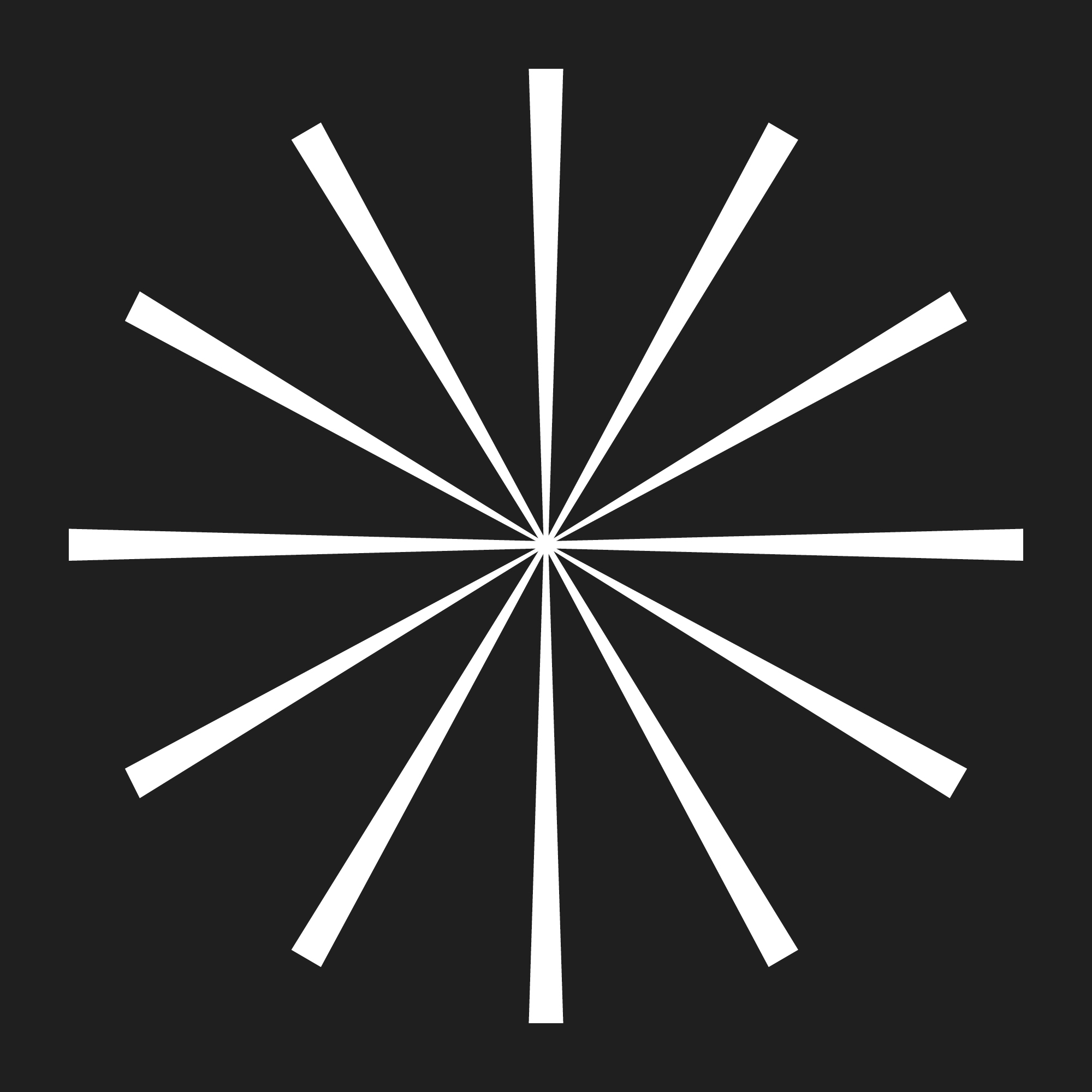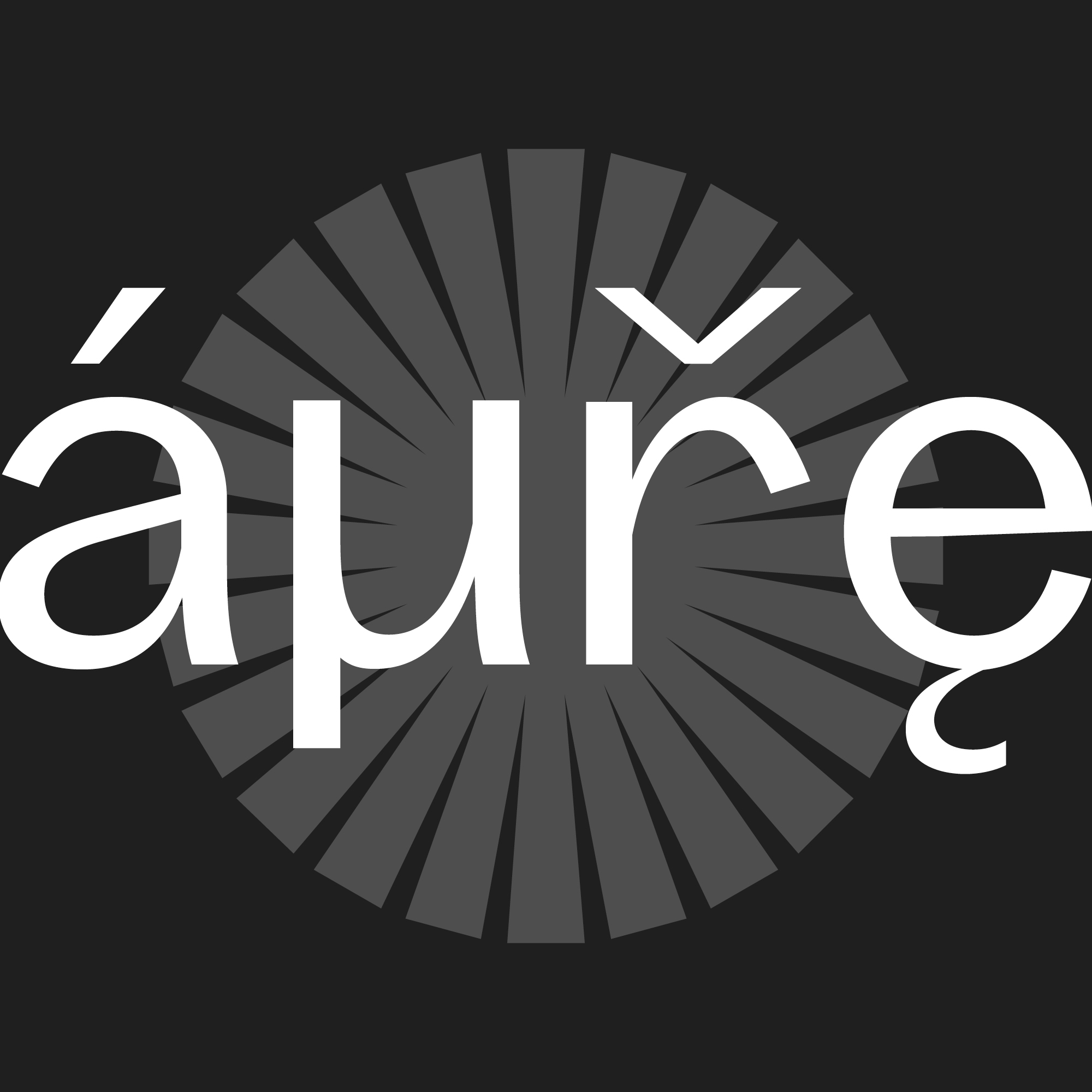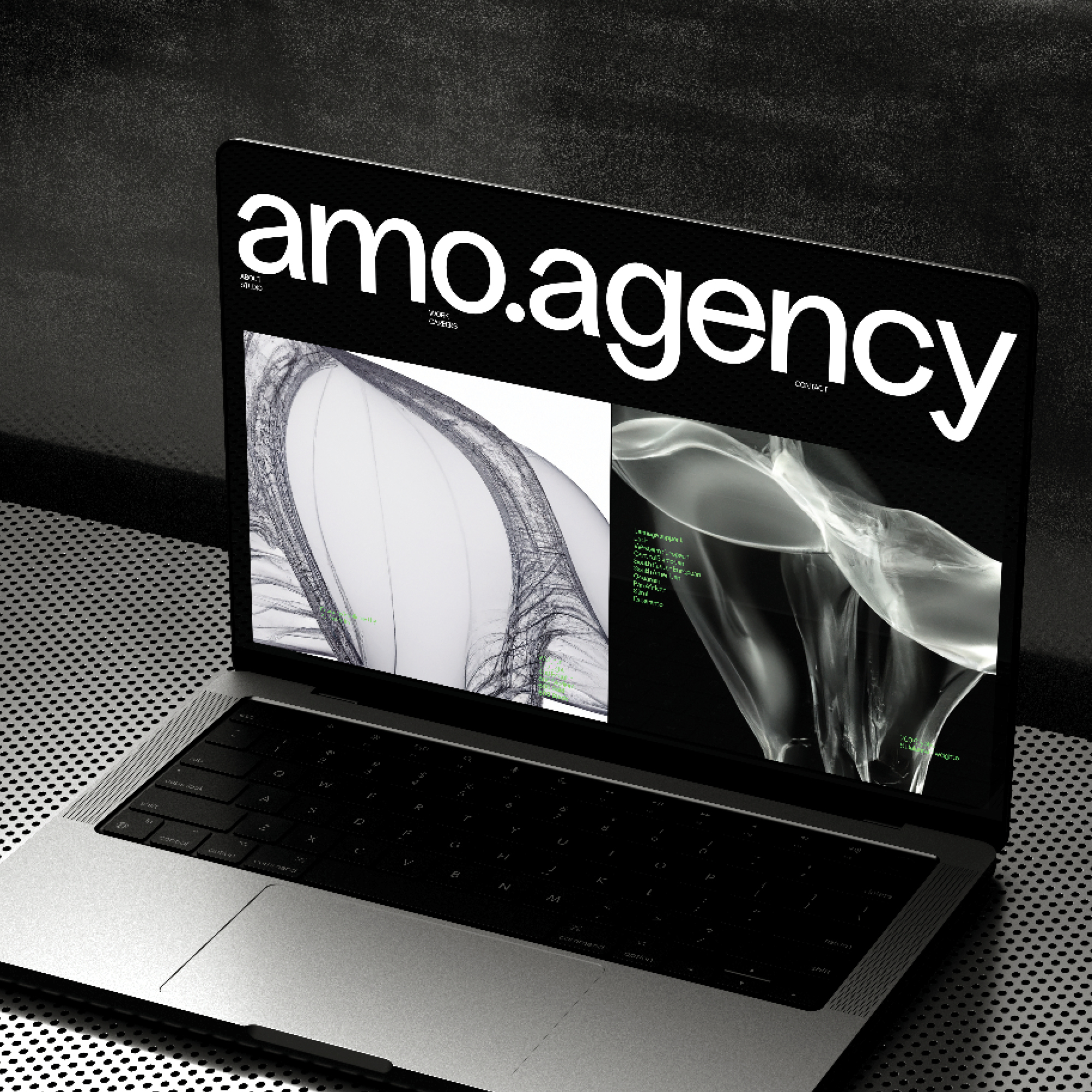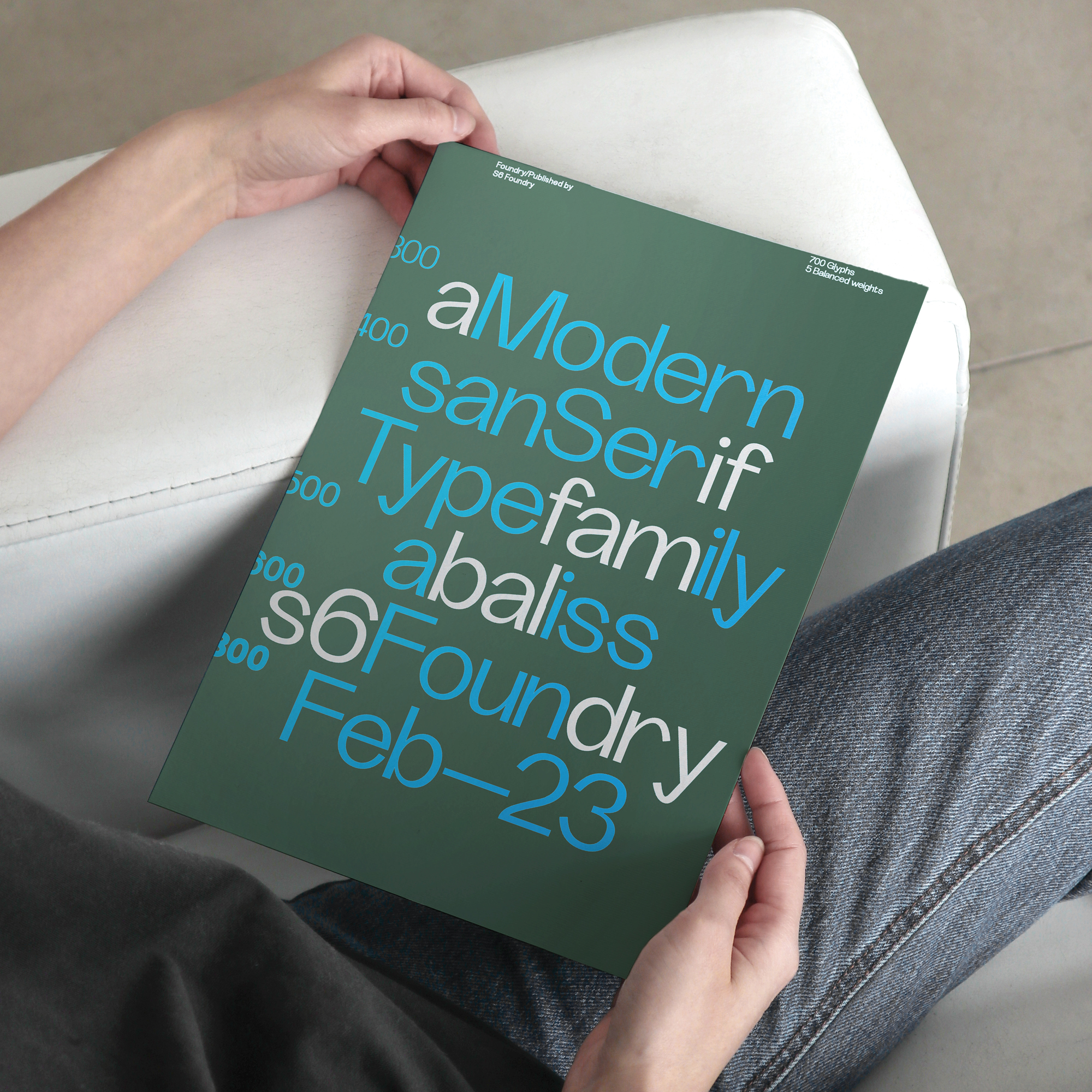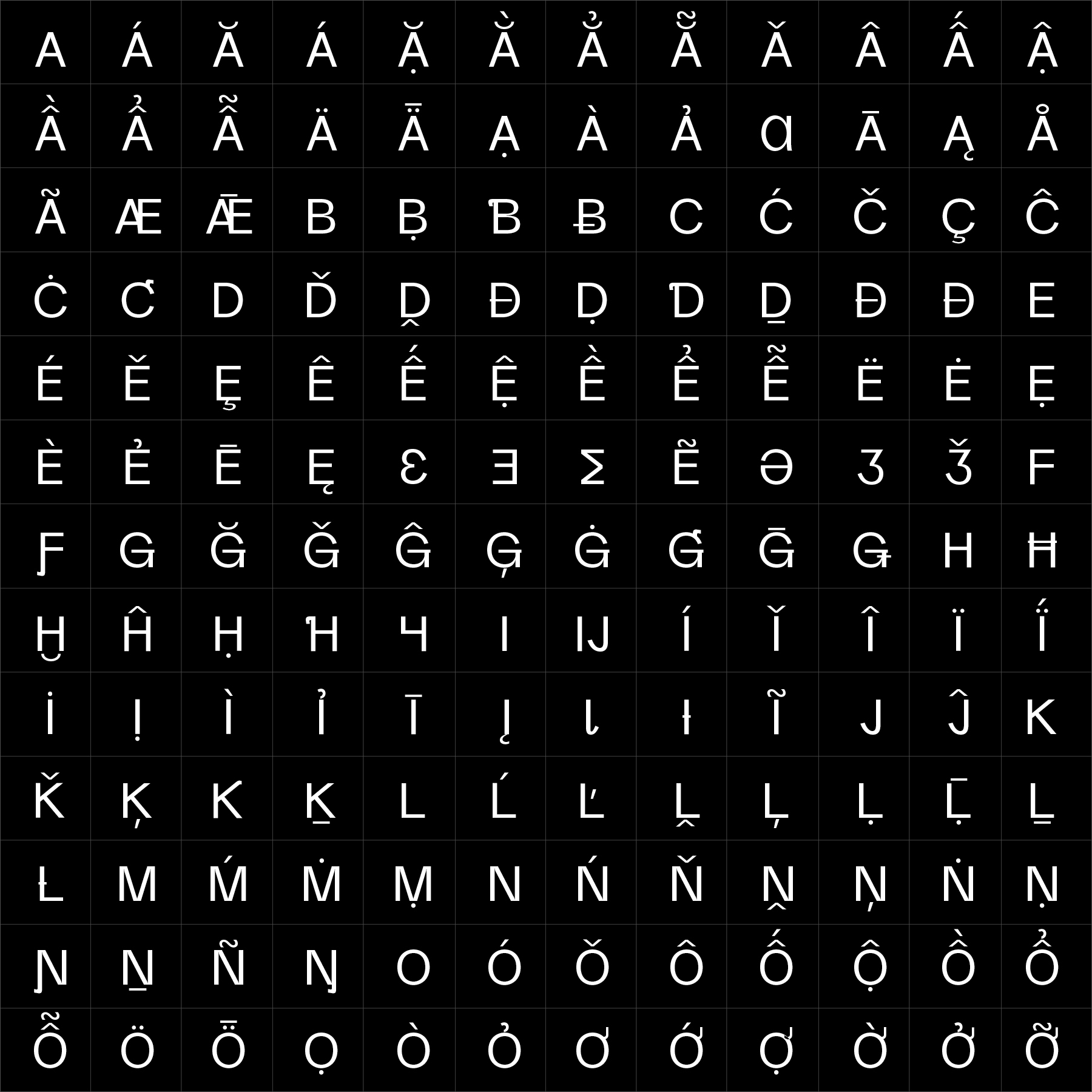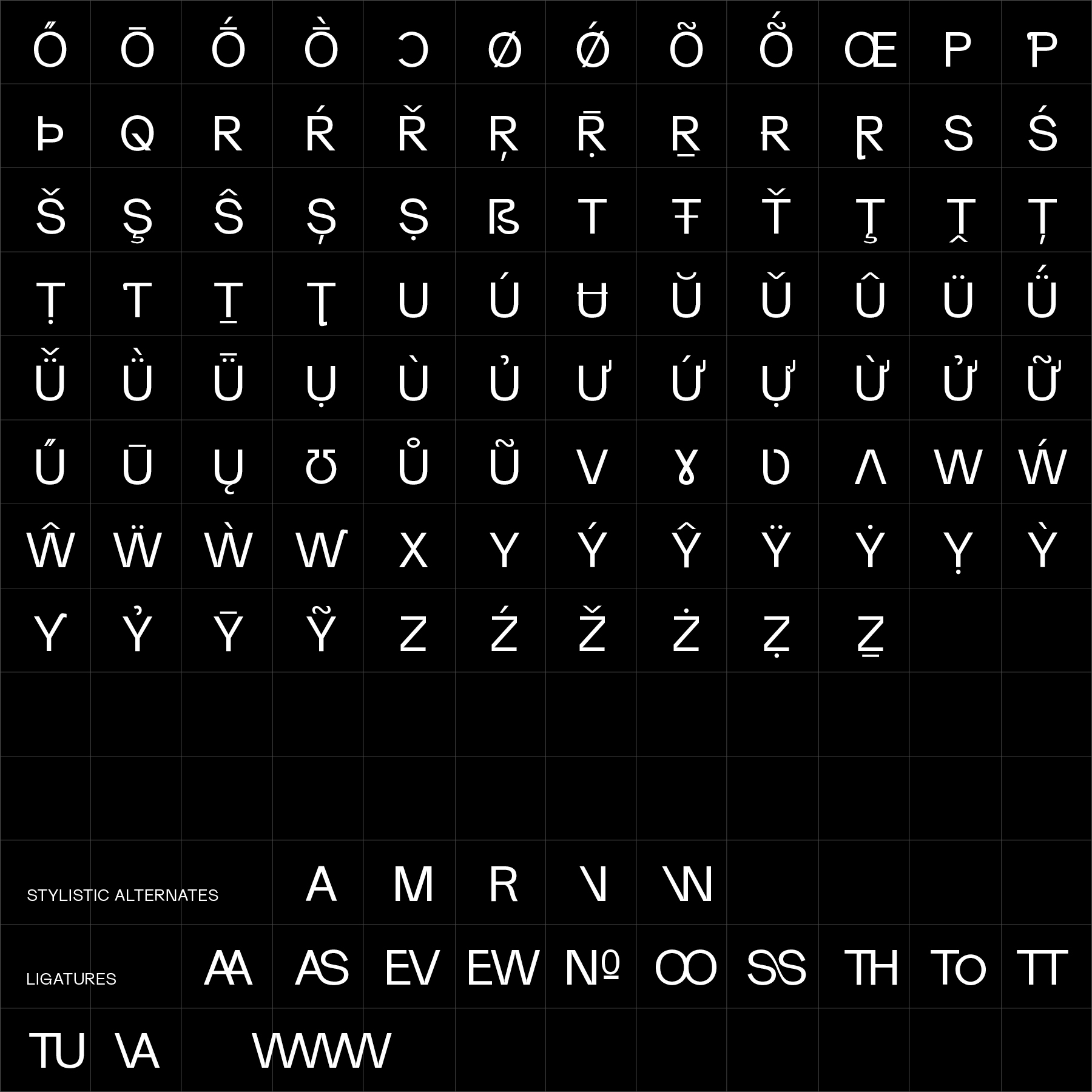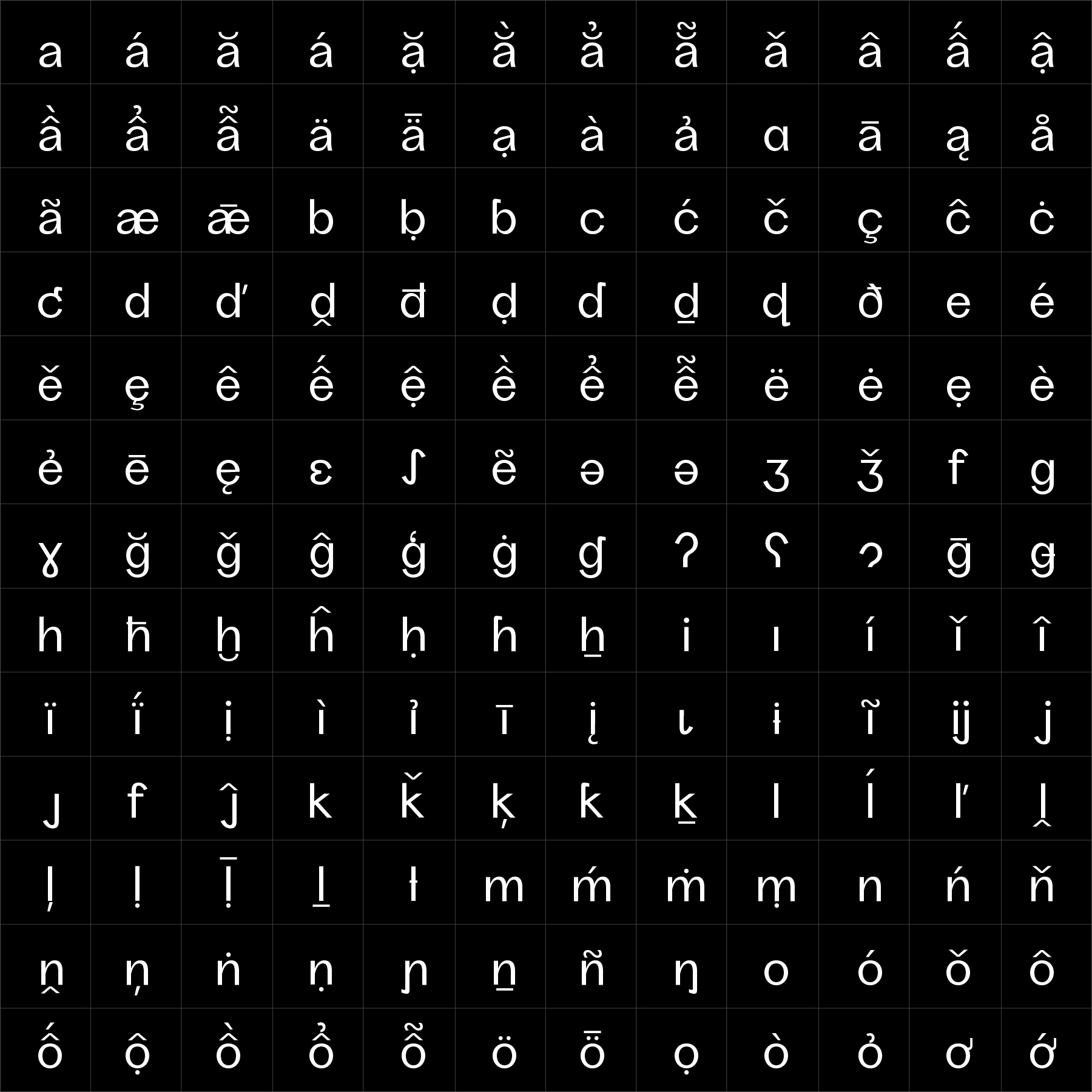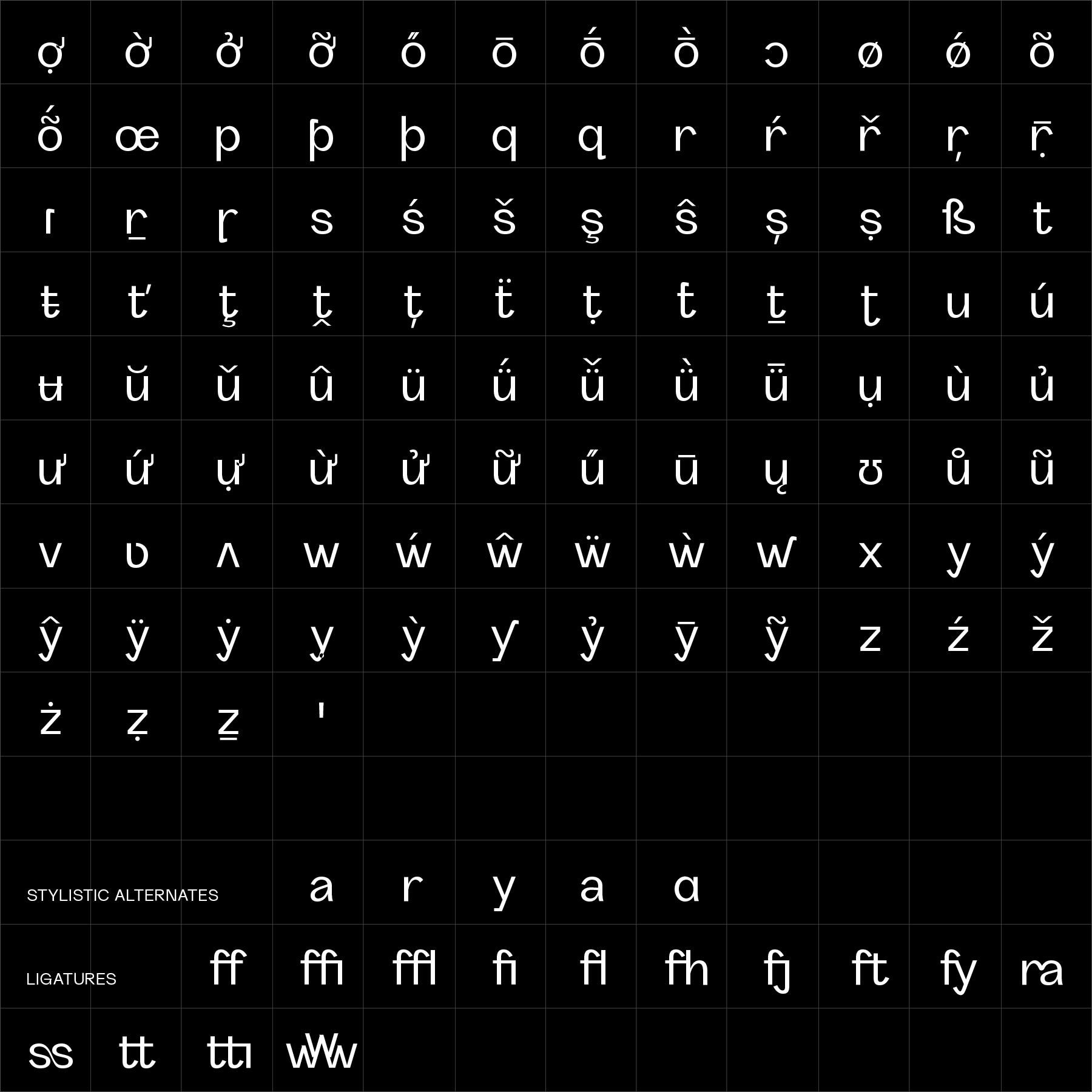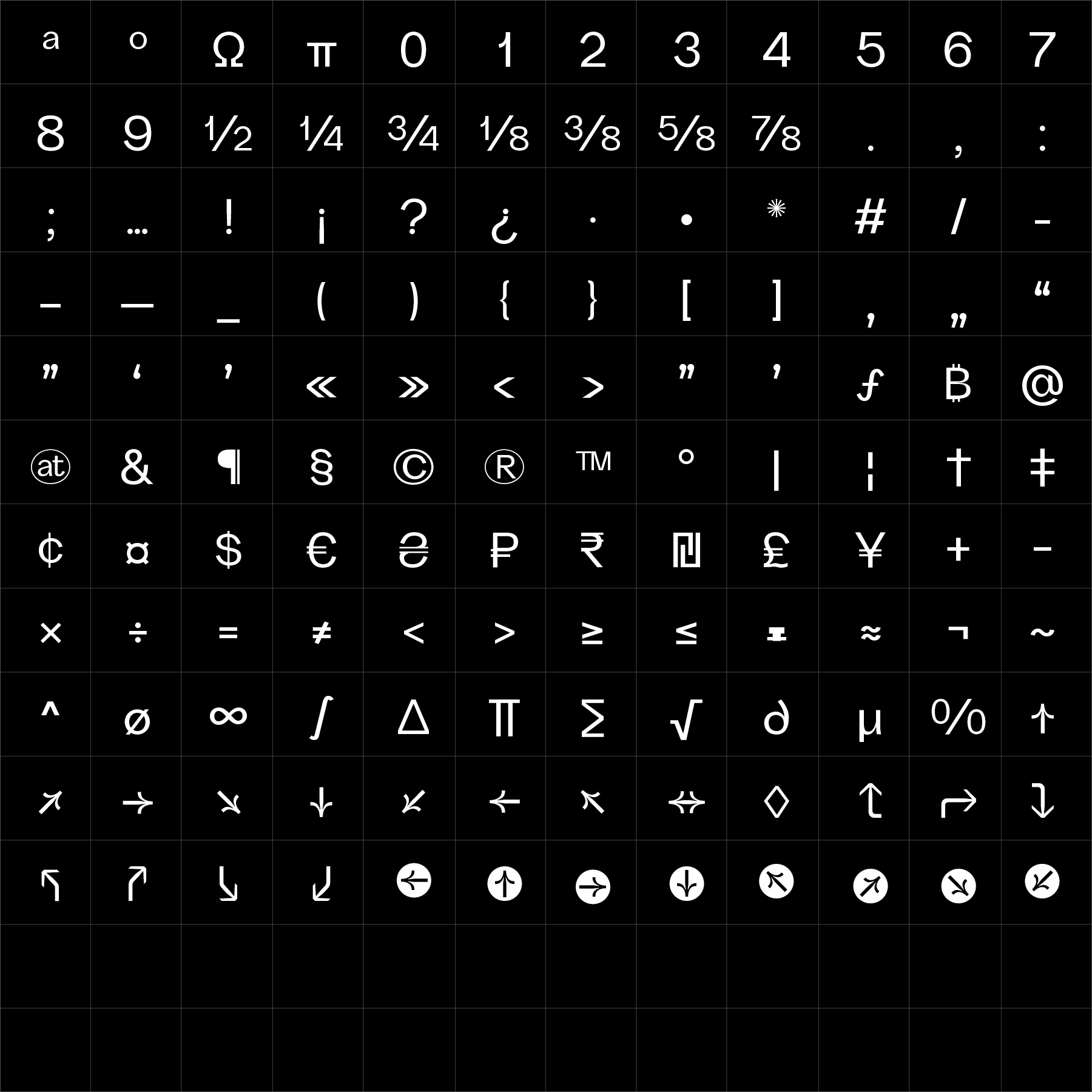
Abaliss Sans
Contemporary Sans Serif Font for Editorial, Branding and Digital Design
Abaliss Sans is a contemporary sans-serif built around balance, openness, and typographic control. Its wide proportions, generous spacing, and calm rhythm create a refined reading texture that feels clear and confident across both print and digital environments.
While rooted in modernist typography, Abaliss introduces softer detailing and subtle character throughout the family. Curved terminals, open counters, and carefully moderated geometry give the typeface warmth without compromising precision. The result is a system that feels elegant, composed, and highly usable.
Designed for editorial design, branding, interface systems, and long-form communication, Abaliss Sans performs consistently across scales. From understated typography in running text to larger expressive compositions, the family maintains a stable visual rhythm and strong legibility throughout its weight range.
With extensive language support, OpenType features, and variable font capability, Abaliss Sans is designed for contemporary design systems requiring flexibility, clarity, and long-term usability.